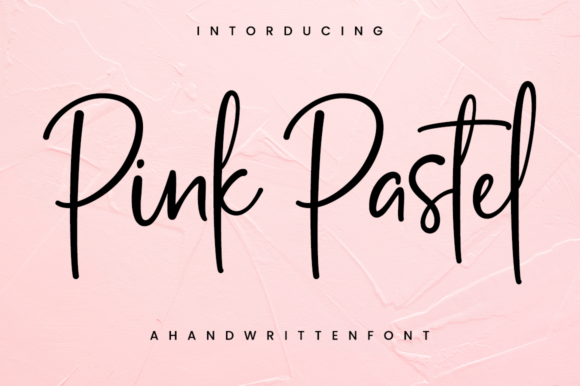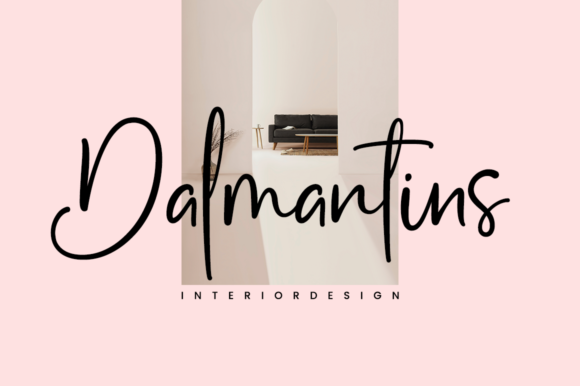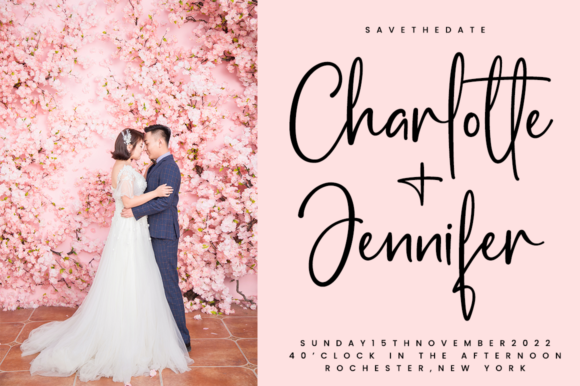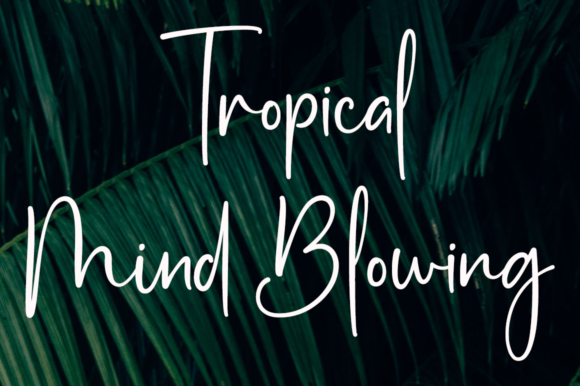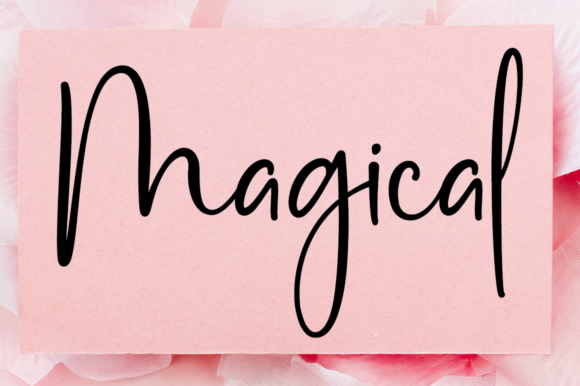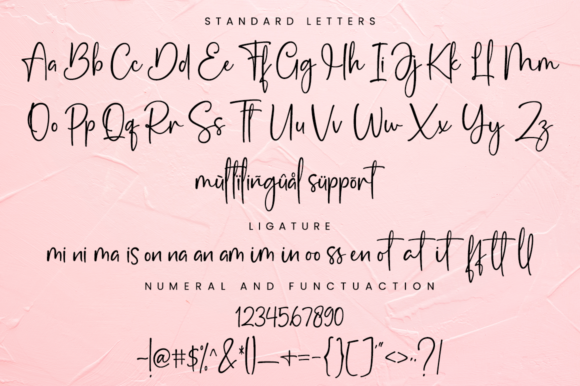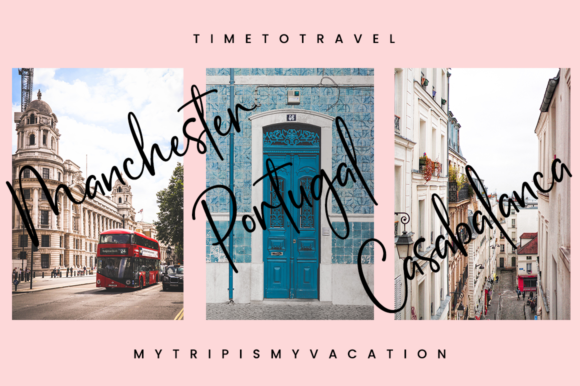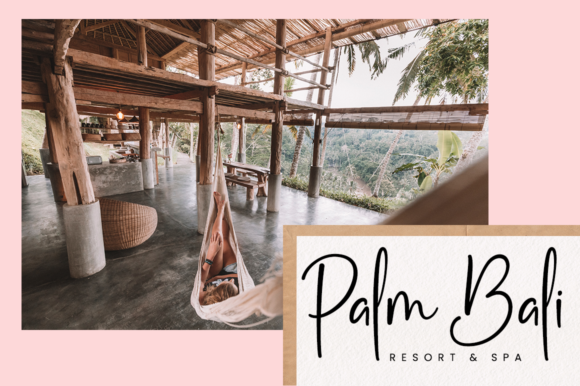
Pink Pastel Font
About Pink Pastel Font
Pink Pastel is a lovely and delicate script font that exudes elegance and class. This font was particularly crafted for those who need a beautiful and refreshing look to their designs.